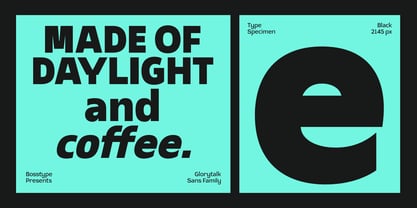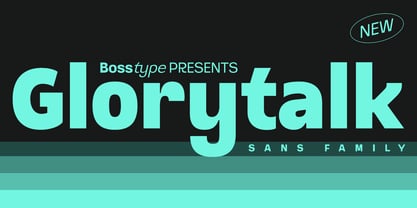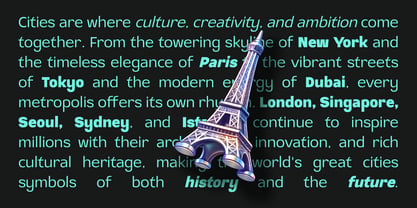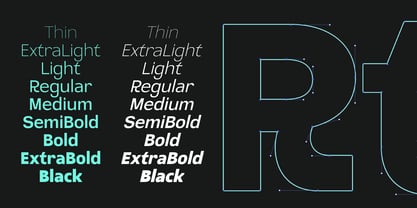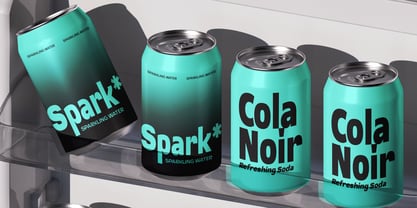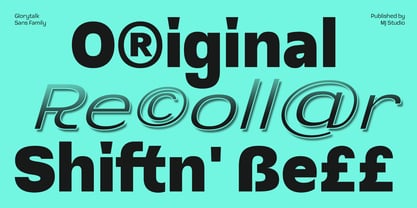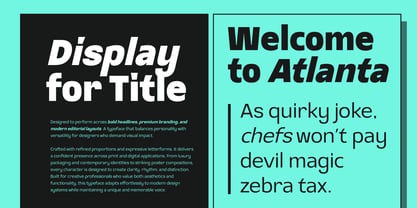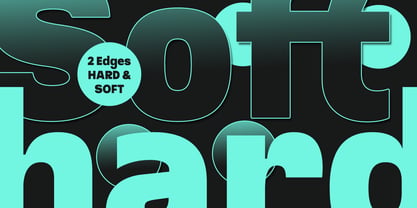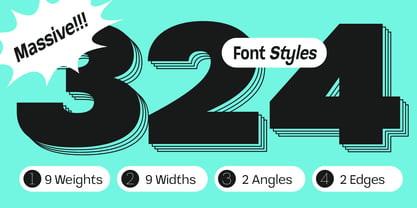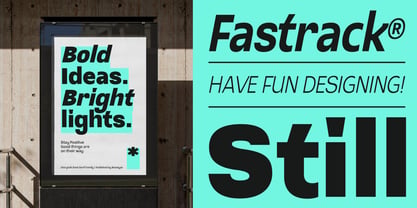
Glorytalk Sans
by Bosstypestudio
The Glorytalk Sans Font Family was designed by Mu Fazzal and published by Bosstypestudio. Glorytalk Sans contains 222 styles and family package options. More about this family
Glorytalk is a bold modern sans serif font family designed to make a powerful visual statement. Featuring clean geometric forms, smooth curves, and balanced proportions, this versatile typeface is perfect for designers seeking a contemporary look with exceptional readability. Whether you're creating striking headlines, premium branding, editorial layouts, or digital interfaces, Glorytalk delivers confidence, clarity, and timeless appeal.
With a complete family of carefully crafted weights, Glorytalk offers excellent flexibility for both display and text applications. Its minimalist character makes it ideal for logos, packaging, advertising, corporate identity, web design, mobile UI, presentations, posters, and social media graphics. Every letter is designed to maintain consistency while adding a professional and modern aesthetic to your creative projects.
Glorytalk is the perfect choice for brands that value clean typography, strong visual hierarchy, and contemporary design. From startups to established businesses, this font family adapts beautifully across print and digital media.
Designers: Mu Fazzal
Foundry: Bosstypestudio